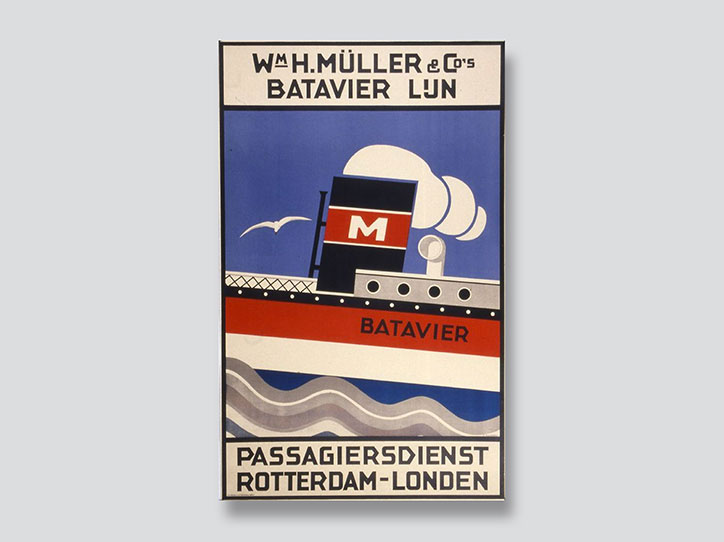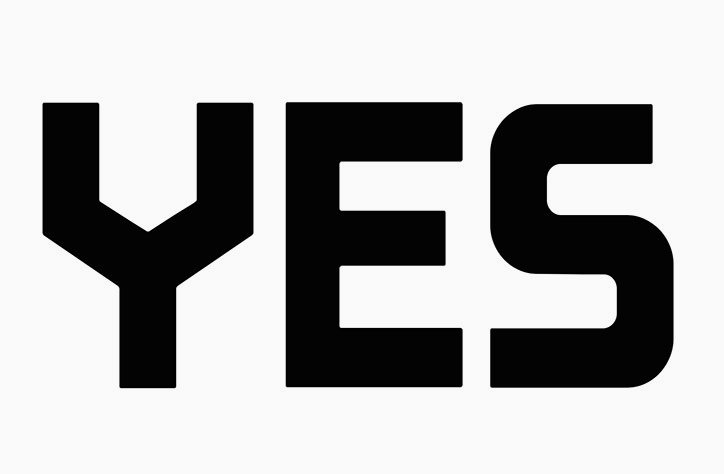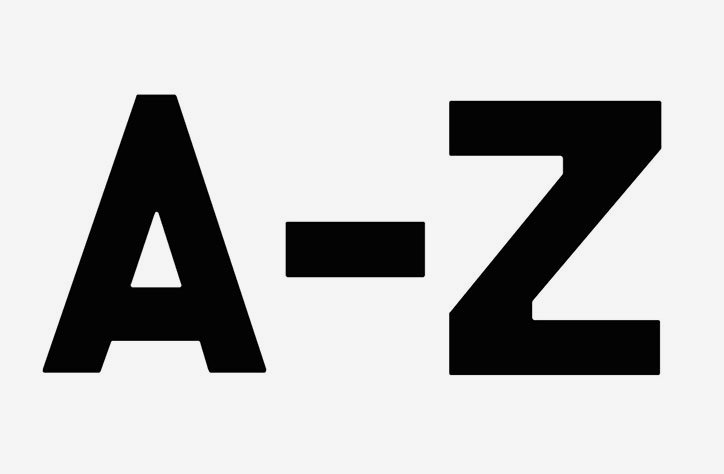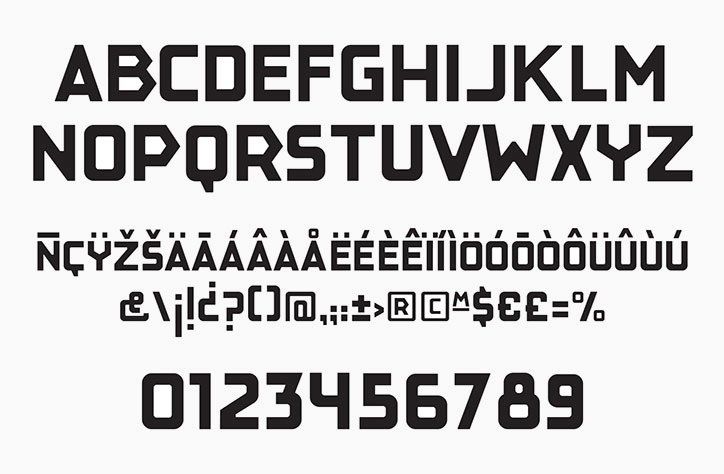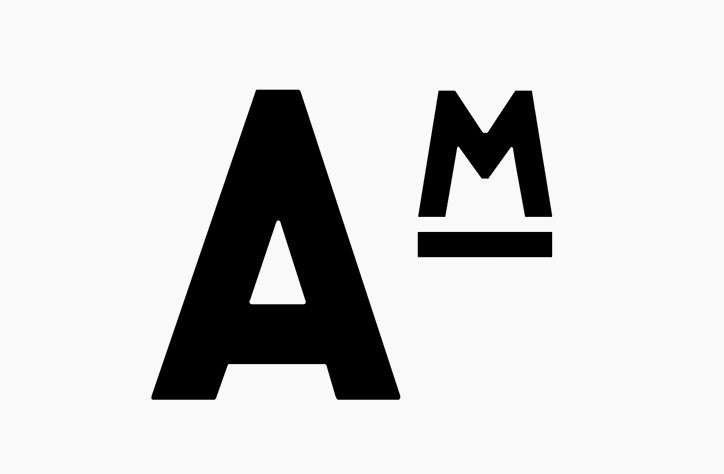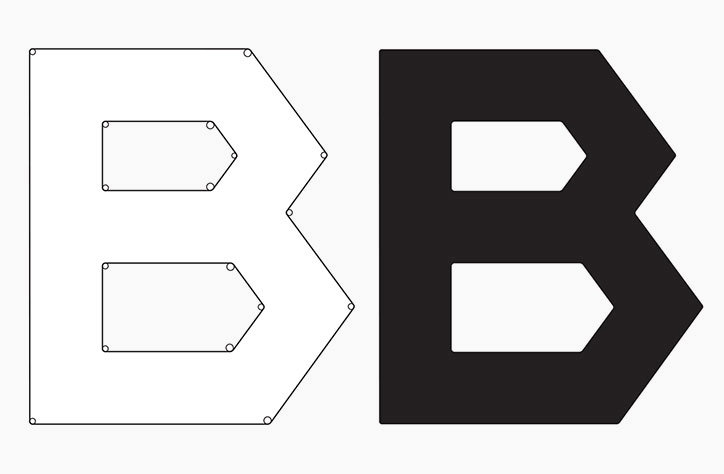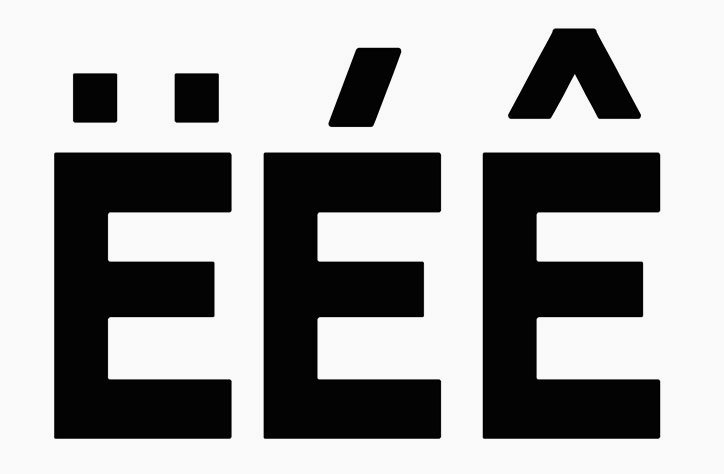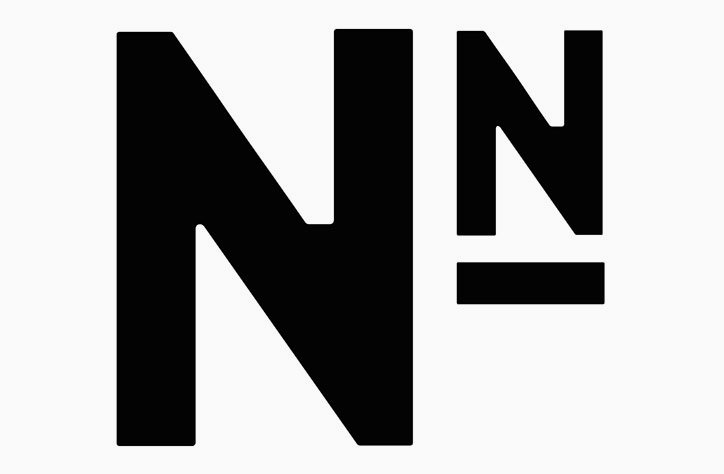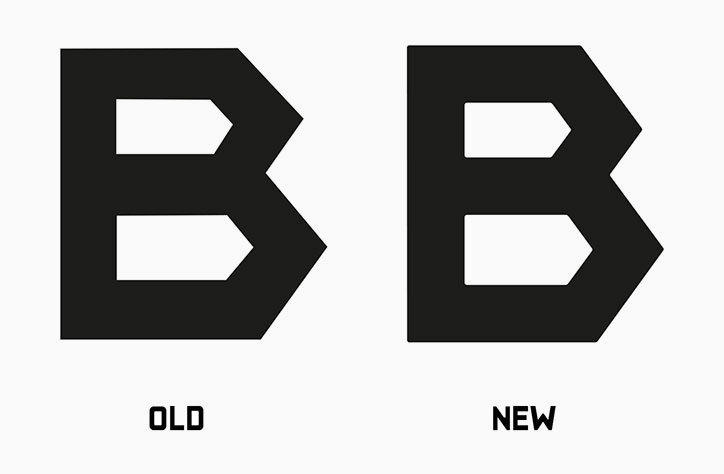
The Yarza Twins’ New Batavier typeface has been rescued from a 1928 travel poster
Design studio The Yarza Twins has rescued a font from a travel poster by Francesca Claussen, reviving it to create the New Batavier typeface.
The original poster from 1928 announces a ship route between Rotterdam and London by Wm. H. Müller & Co’s Batavier Line, and shows elements of classic Dutch graphic design with bold constructivist type. This is what Eva and Marta Yarza have traced to use as a basis for their new face.
“We found the poster when reading a book on travelling posters, and fell in love at first sight with the font,” say the twins. “We couldn’t find a lot of information about it, but we felt we wanted to be able to use it.”
After tracing the available letters, the twins created a whole set and then started redrawing each individual letter, refining them to give a consistent feel. The sharp, geometric shapes have been stylised, given slightly rounder edges, and are overall a bit chunkier, adapting the typeface for a contemporary context.
The Yarza Twins: New Batavier